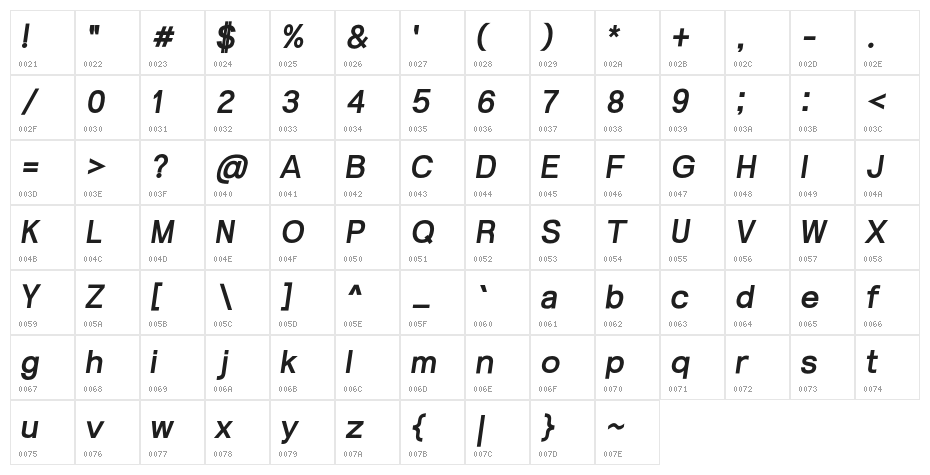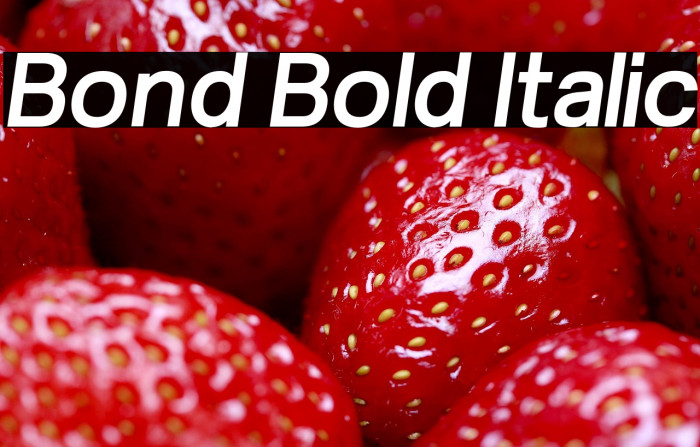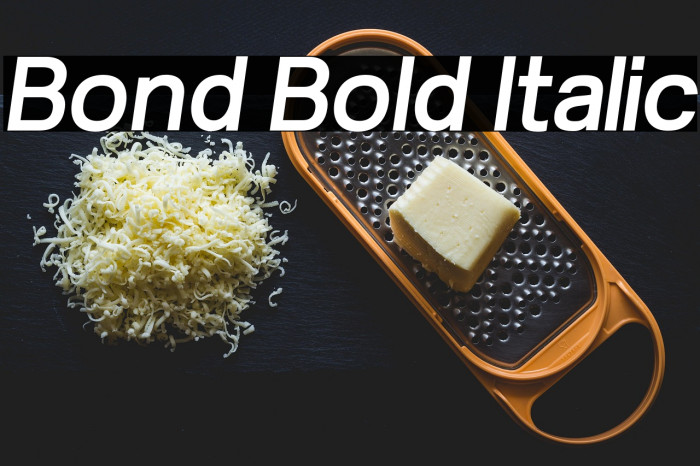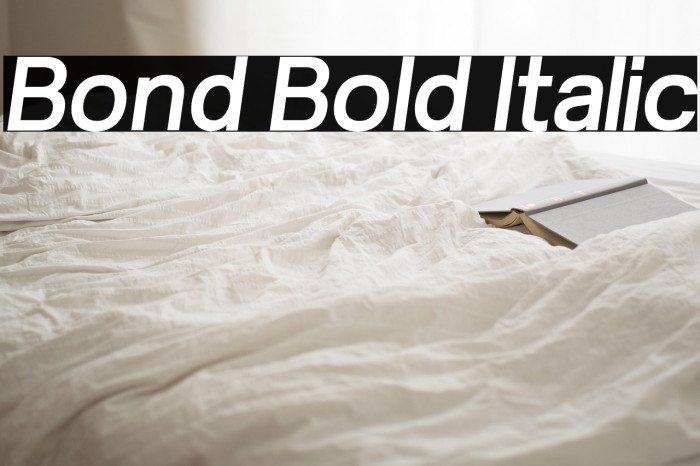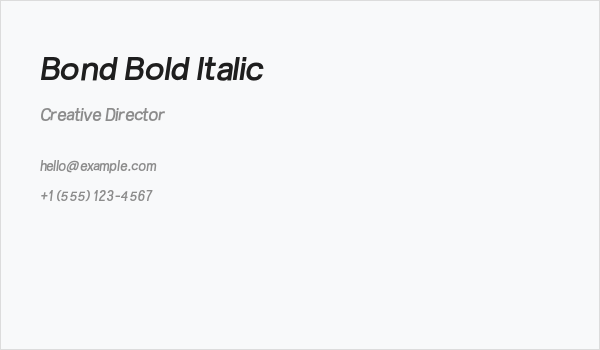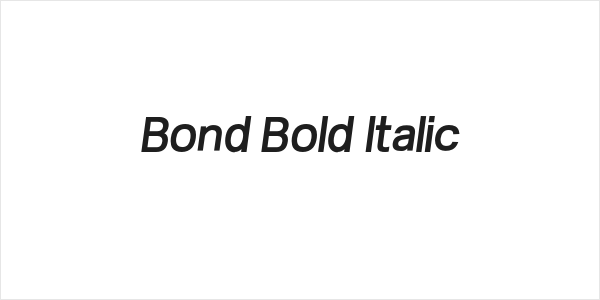
Bond Bold Italic Font
Bond Bold Italic Description
This font exhibits a bold and italicized style, characterized by its strong and assertive presence. The letters are slanted, giving a dynamic and forward-moving appearance. The strokes are thick and consistent, providing a sense of stability and confidence. The font maintains a modern aesthetic with clean lines and a smooth finish, making it suitable for impactful headlines and attention-grabbing text. The character spacing is normal, ensuring readability while maintaining its bold nature. This font is versatile, fitting well in both digital and print media, where a strong emphasis is needed.
| Use Case | Headlines, Logos, Advertising |
| Proposed Projects | Ideal for branding, advertising, headlines, and any project requiring a strong visual impact. |